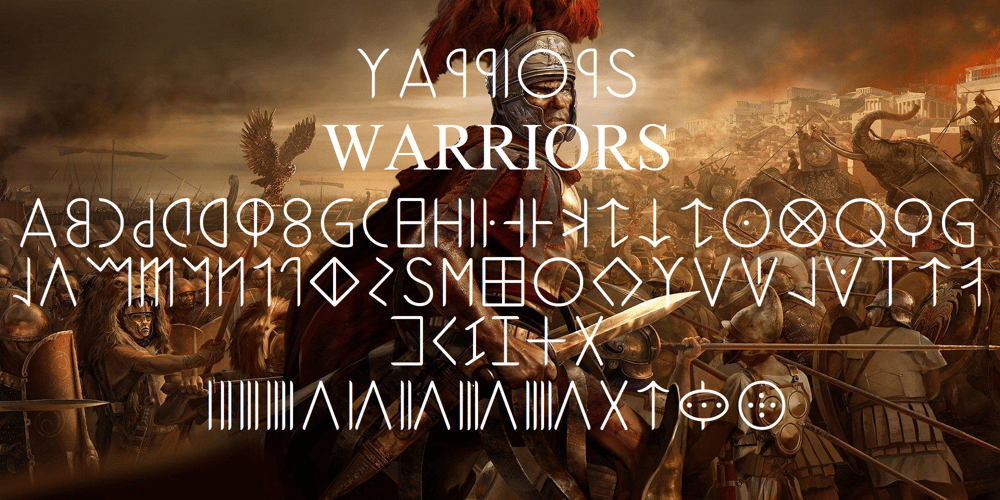
Ongunkan Old Latin
Ongunkan Old Latin font
Ongunkan Old Latin Font Family was designed by Osman Nuri ALKAN and published by Runic World Tamgacı. Ongunkan Old Latin contains 1 styles and family package options. The Latin, or Roman, alphabet was originally adapted from the Etruscan alphabet during the 7th century BC to write Latin. Since then it has had many different forms, and been adapted to write many other languages.According to Roman legend, the Cimmerian Sibyl, Carmenta, created the Latin alphabet by adapting the Greek alphabet used in the Greek colony of Cumae in southern Italy. This was introduced to Latium by Evander, her son. 60 years after the Trojan war. There is no historical evidence to support this story, which comes from the Roman author, Gaius Julius Hyginus (64BC – 17AD).The earliest known inscriptions in the Latin alphabet date from the 6th century BC. It was adapted from the Etruscan alphabet during the 7th century BC. The letters Y and Z were taken from the Greek alphabet to write Greek loan words. Other letters were added from time to time as the Latin alphabet was adapted for other languages.